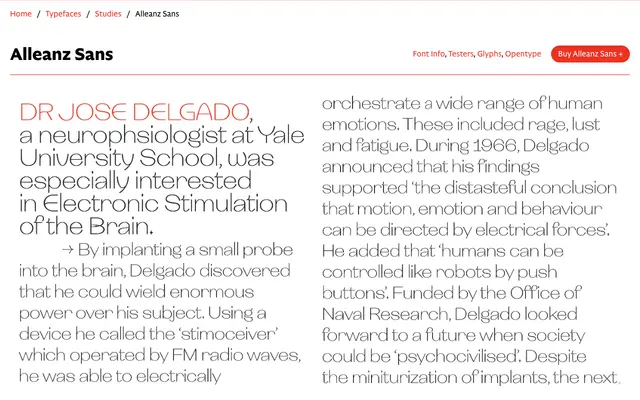
Alleanz Sans
CAST · Erasmo Ciufo · 2020
Alleanz Sans specimen from CAST
An ultra-light display grotesque by Erasmo Ciufo that draws on sci-fi cinema and futurist aesthetics, with eccentric letterforms and four stylistic sets of alternate characters.
Wide proportions and a pronounced thick-thin contrast give Alleanz Sans an otherworldly, high-contrast silhouette suited to headlines and title sequences. Unusual details throughout — a central bar on the g that overruns the bowl, f and t terminals that curl beyond convention — are extended by four stylistic sets offering lexigram-style alternates. The single ExtraLight weight positions it as a specialist display tool for fashion, technology and speculative branding contexts.
An ultra-light display grotesque with pronounced thick-thin contrast, wide letterforms and deliberately eccentric details that push it firmly into display territory rather than functional text use.